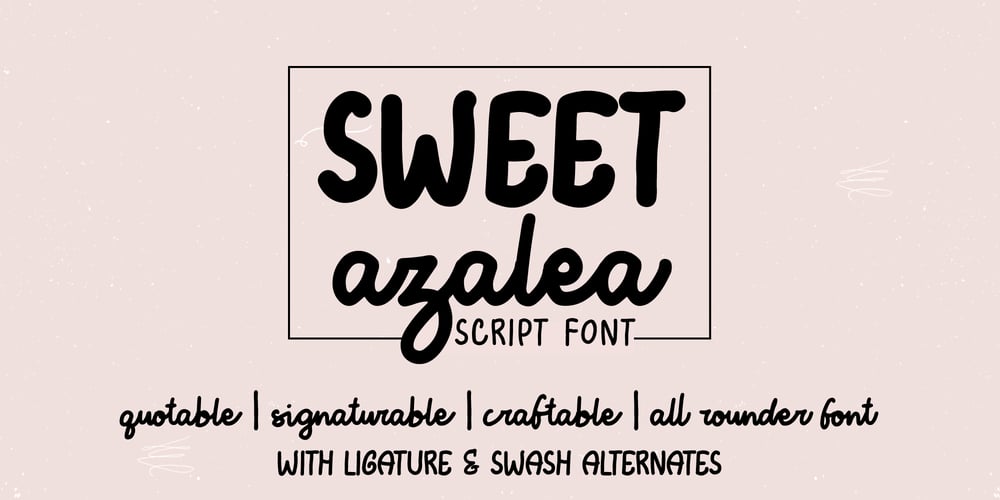
Sweet Azalea Font Family was designed by Lia Almuknisa and published by Fromletterel. Sweet Azalea contains 1 styles and family package options. Sweet azalea is an all rounder font, very easy to adjust following your needs, it can be used as signature, branding, web design and of course used as casual script font to add a handwriting touch, all is available in just one file.Plus featured with ligatures and swash alternates.